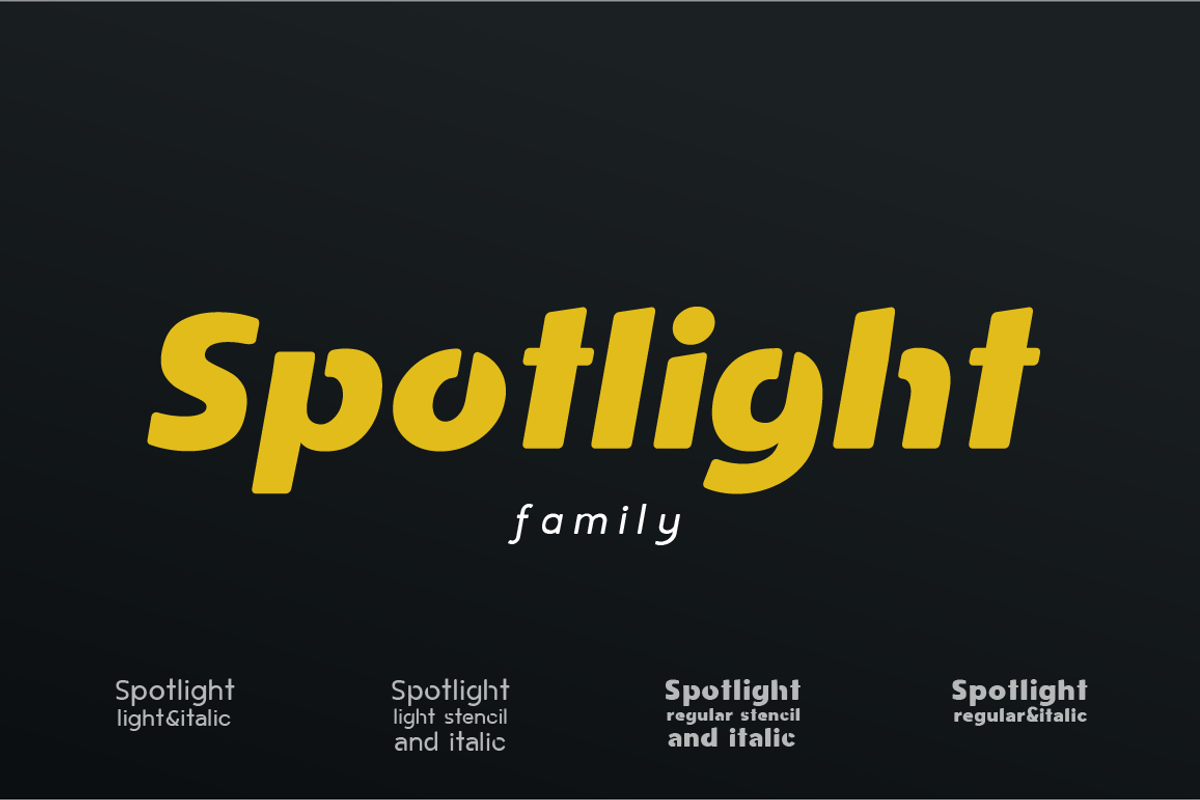
Spotlight I Sans Serif Family Font Free Download is a clean, modern, and versatile typeface family that brings clarity and sophistication to any design. With multiple weights and styles, this font family is perfect for branding, websites, editorial layouts, logos, and any project that requires a sleek, professional look.
Whether you're building a modern brand identity, designing a minimalist website, or creating a high-quality publication, Spotlight I ensures your typography is crisp, readable, and stylish. It’s the perfect font family for designers who appreciate clean lines and contemporary elegance.